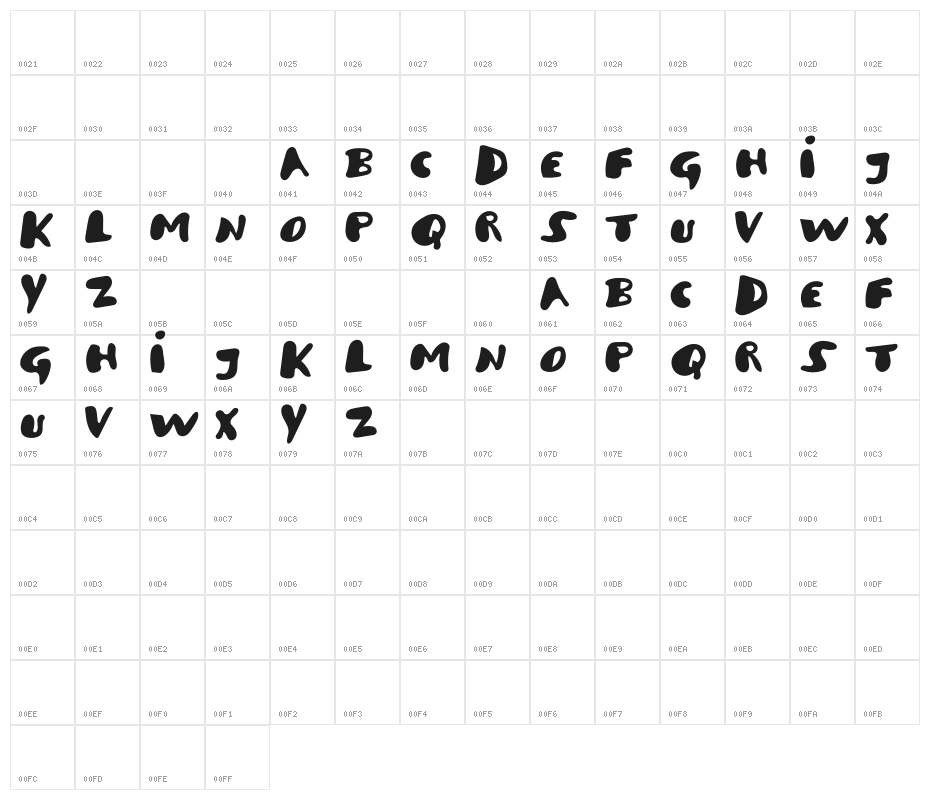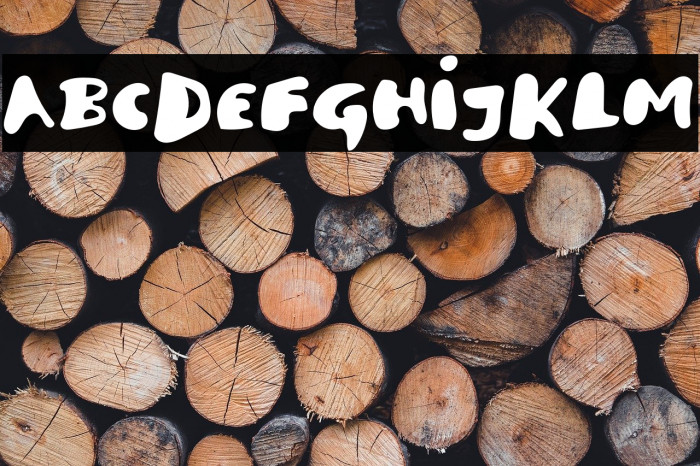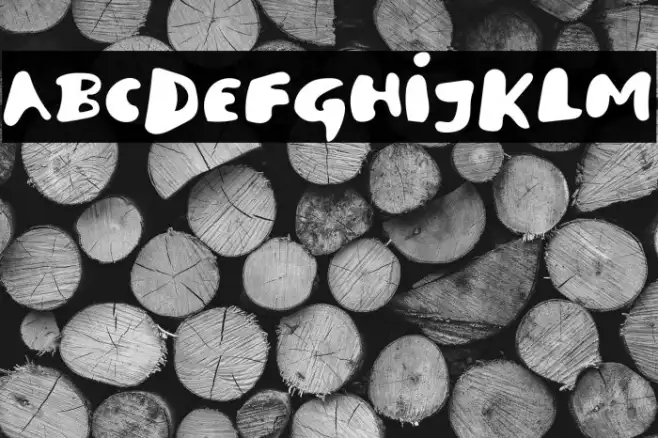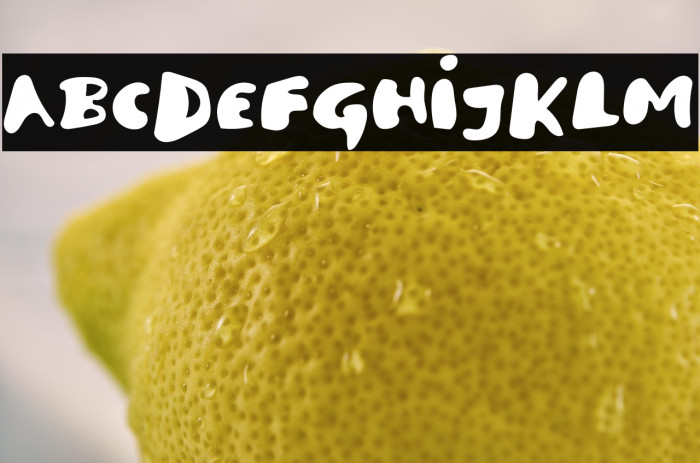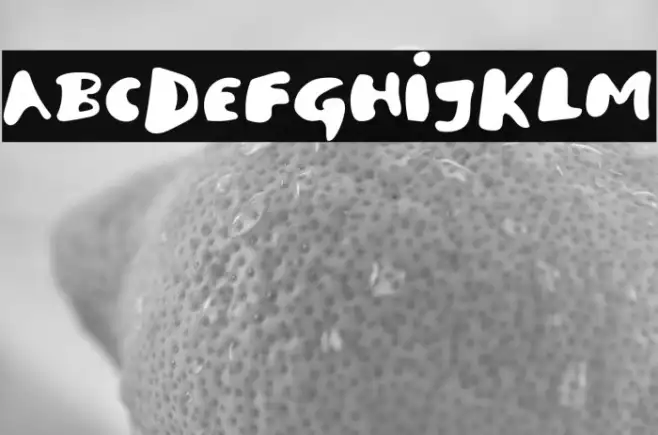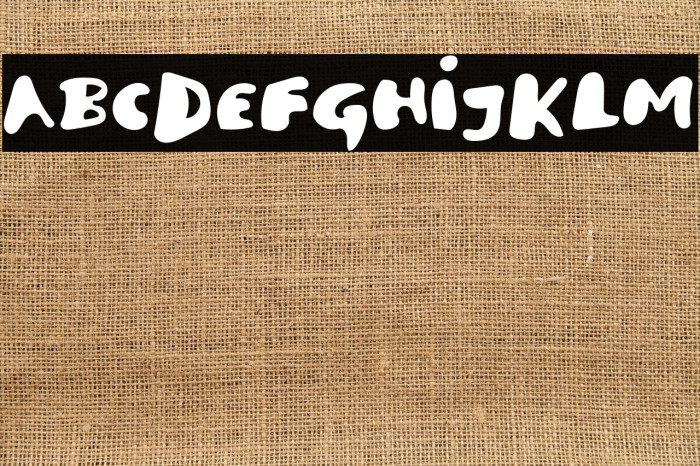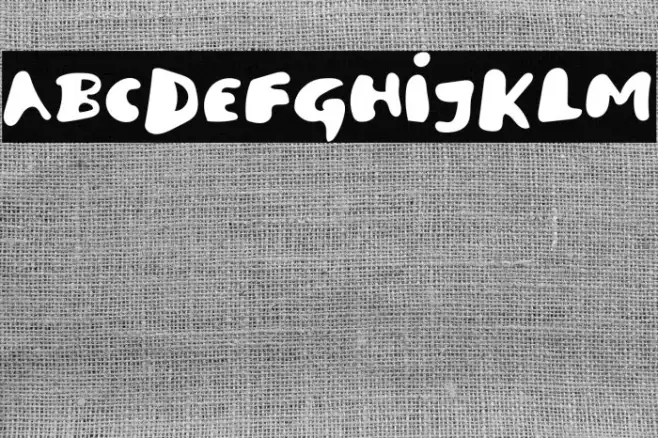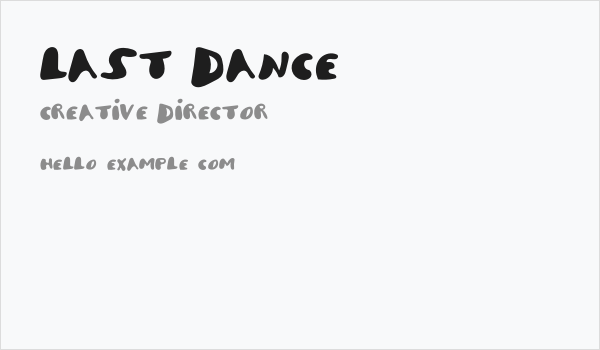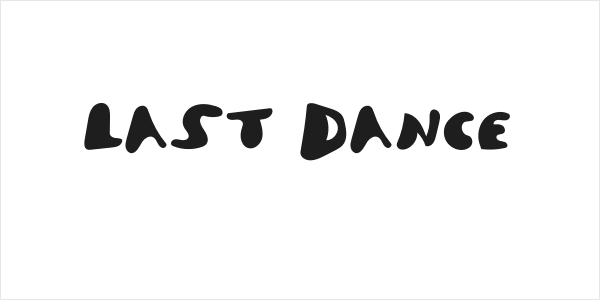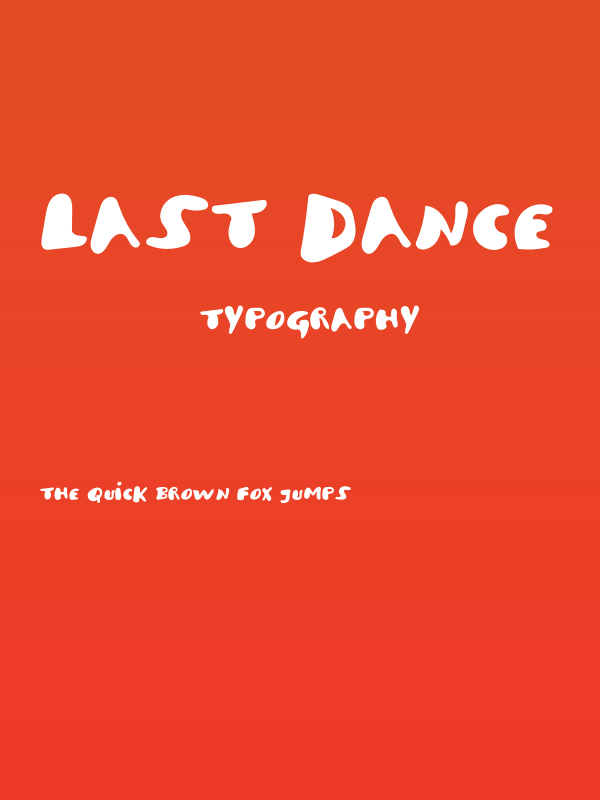
LAST DANCE Font
LAST DANCE Description
This playful and bold font features a unique, hand-drawn style with rounded, irregular shapes that give it a whimsical and friendly appearance. The letters are thick and substantial, with a slightly uneven baseline that adds to its charm. The strokes are consistent in weight, creating a cohesive look across all characters. This font exudes a sense of fun and creativity, making it ideal for projects that require a touch of personality and flair. Its distinctive style is both eye-catching and memorable, perfect for making a statement.
| Proposed Projects | Ideal for children's books, playful branding, creative posters, and fun social media graphics. |